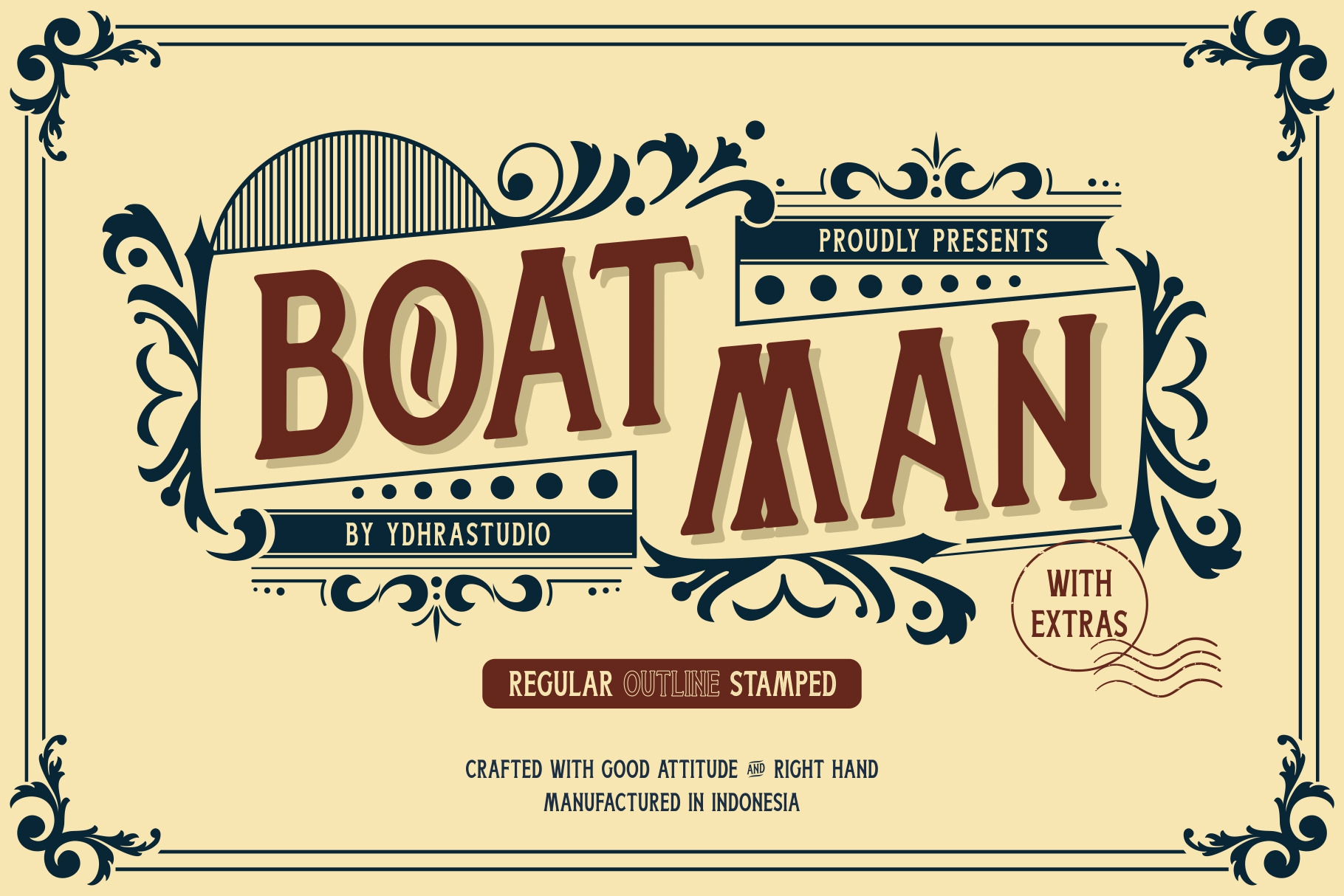
Boatman Font + Extras
We introduce our new font called Boatman.
Boatman is a vintage display font inspired from classic whiskey labels, vintage labels and sing painting. Boatman comes with 3 styles (Regular, Outline and Stamped) that extends the possibilities when you design something. Boatman also has the Stylistic Set. With the Stylistic Set, Boatman gives you so many options to create something awesome. Mix and match the alternate characters to add an attractive message to your design.
Furthermore the Boatman includes a Set of Ornament Labels which perfectly complement text compositions. You can see it on my presentation examples.
Boatman is great for Logotype, Branding Design, Logo Design, Badges, Digital Lettering Arts, T-Shirt/Apparel, Headline, Posters, Magazine, Signs, Advertising Design, and any vintage design needs.
Boatman Features :
- All Caps Characters, Punctuation, Numerals.
- Opentype Feature such as Stylistic Set.
- Includes a range of multilingual characters.
- Ornament Labels